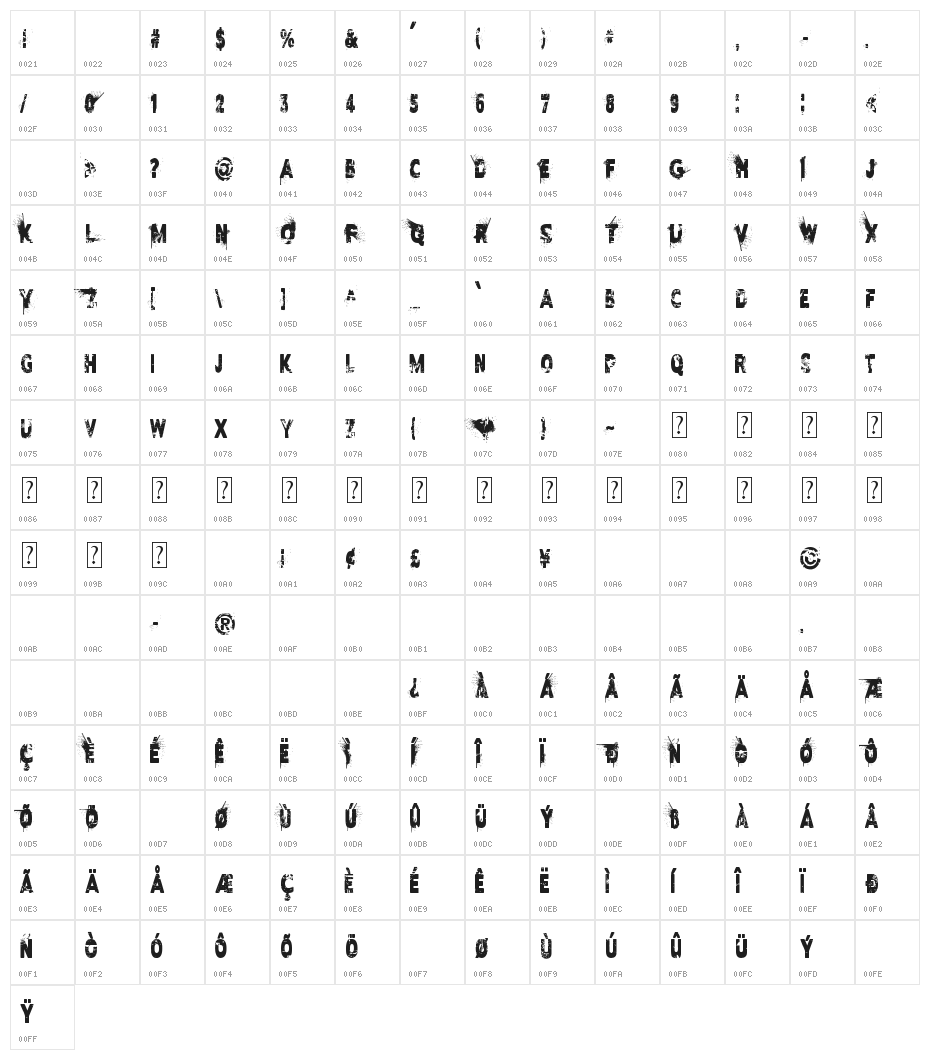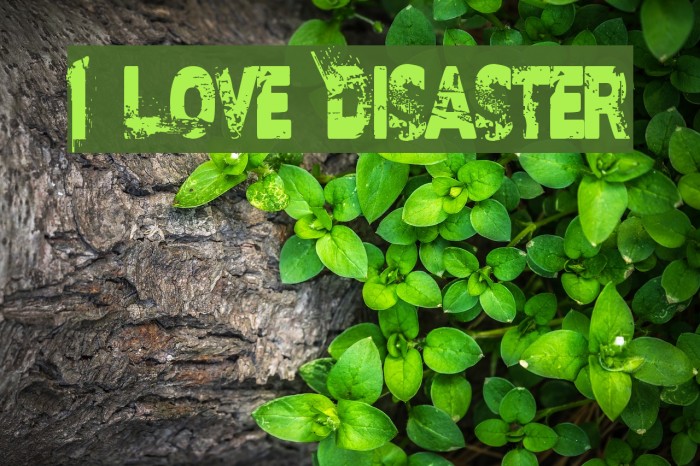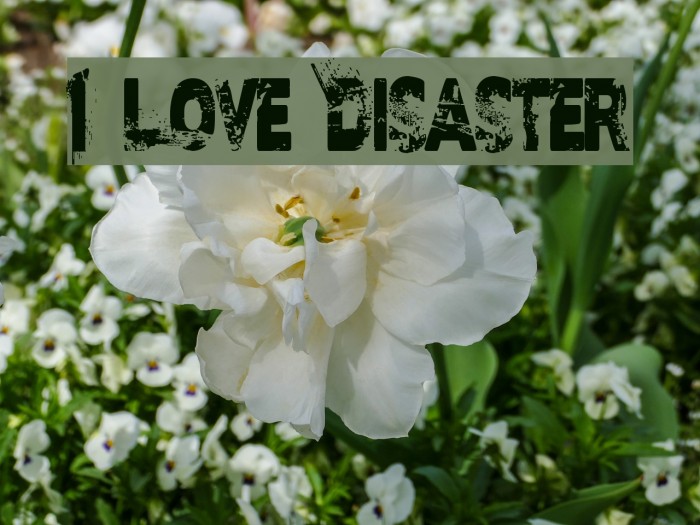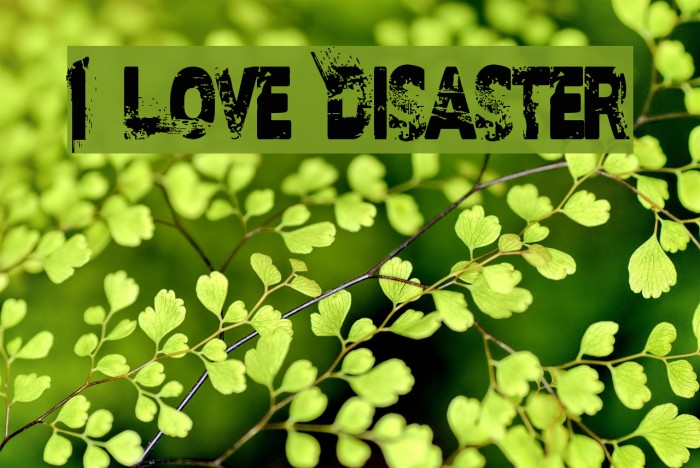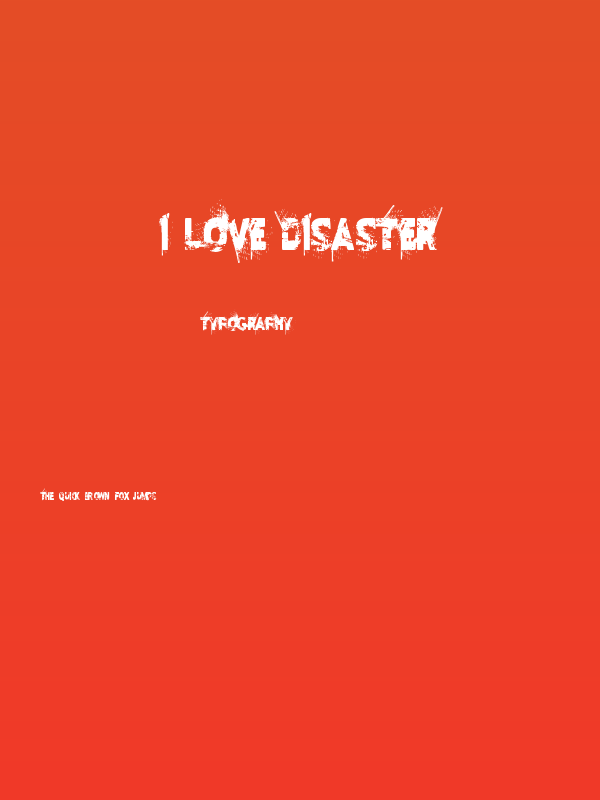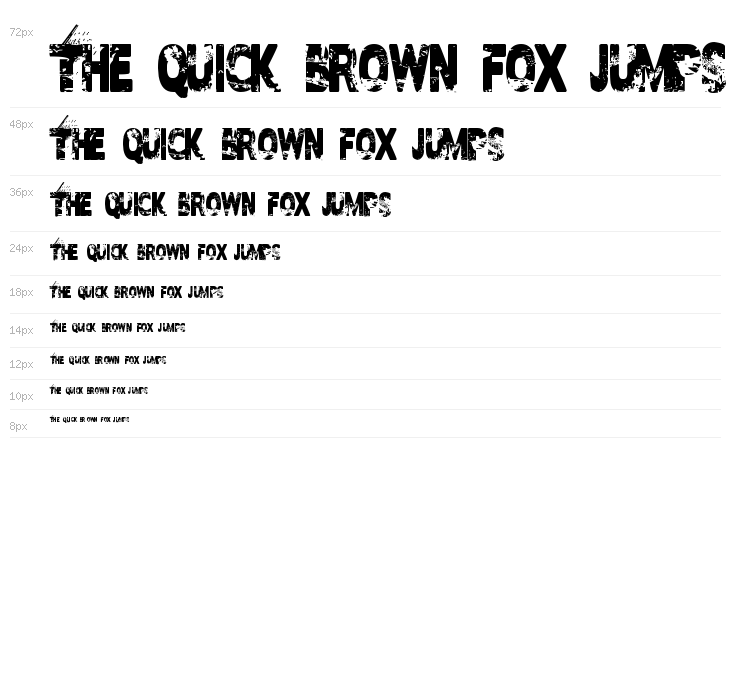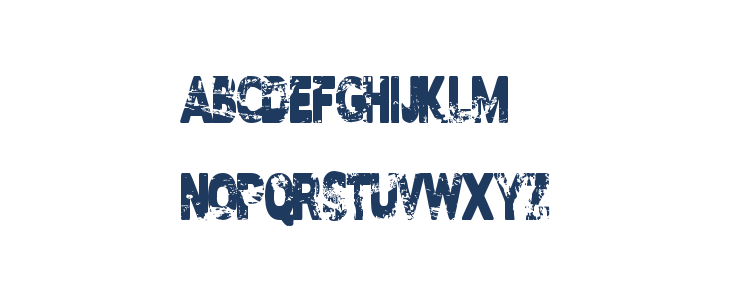
I Love Disaster Font
| Gesamtstil | Grunge, Edgy, Distressed |
| Anwendungsfall | Headlines, Posters, Branding |
| Vorgeschlagene Projekte | Ideal for music album covers, urban-themed posters, streetwear branding, or any project needing a gritty, rebellious touch. |